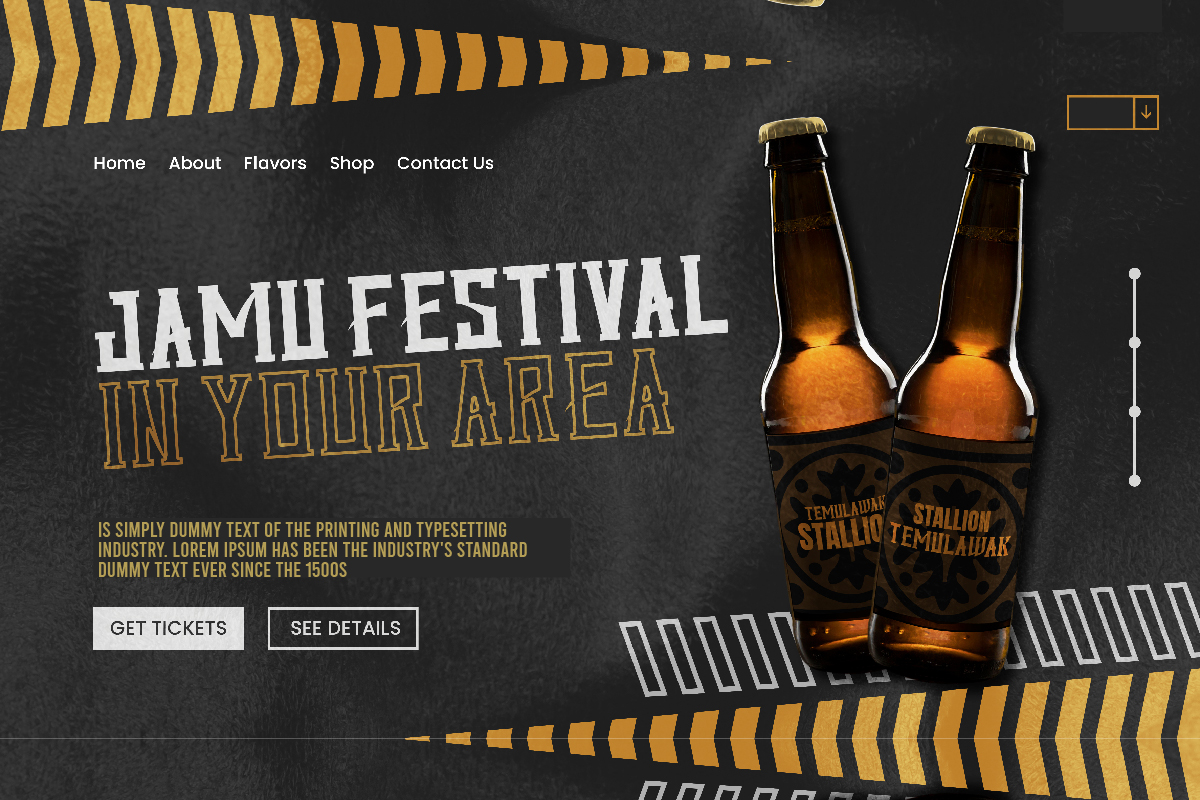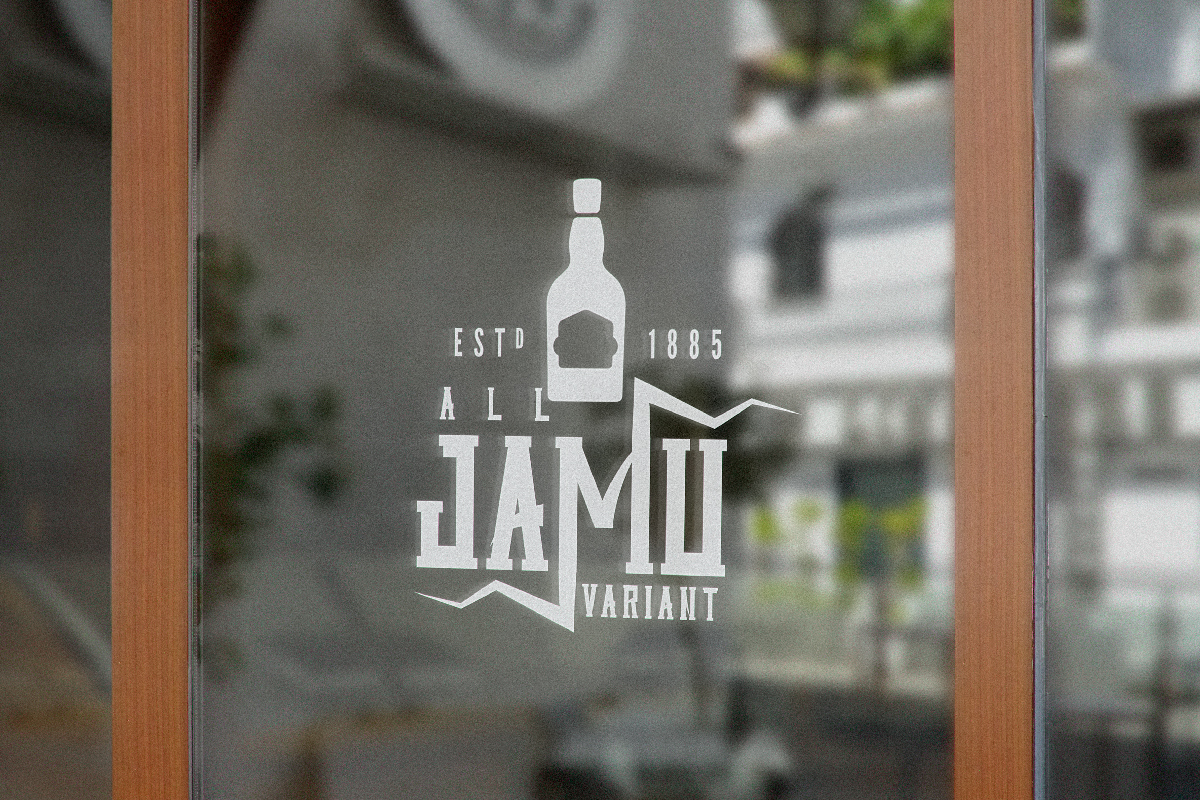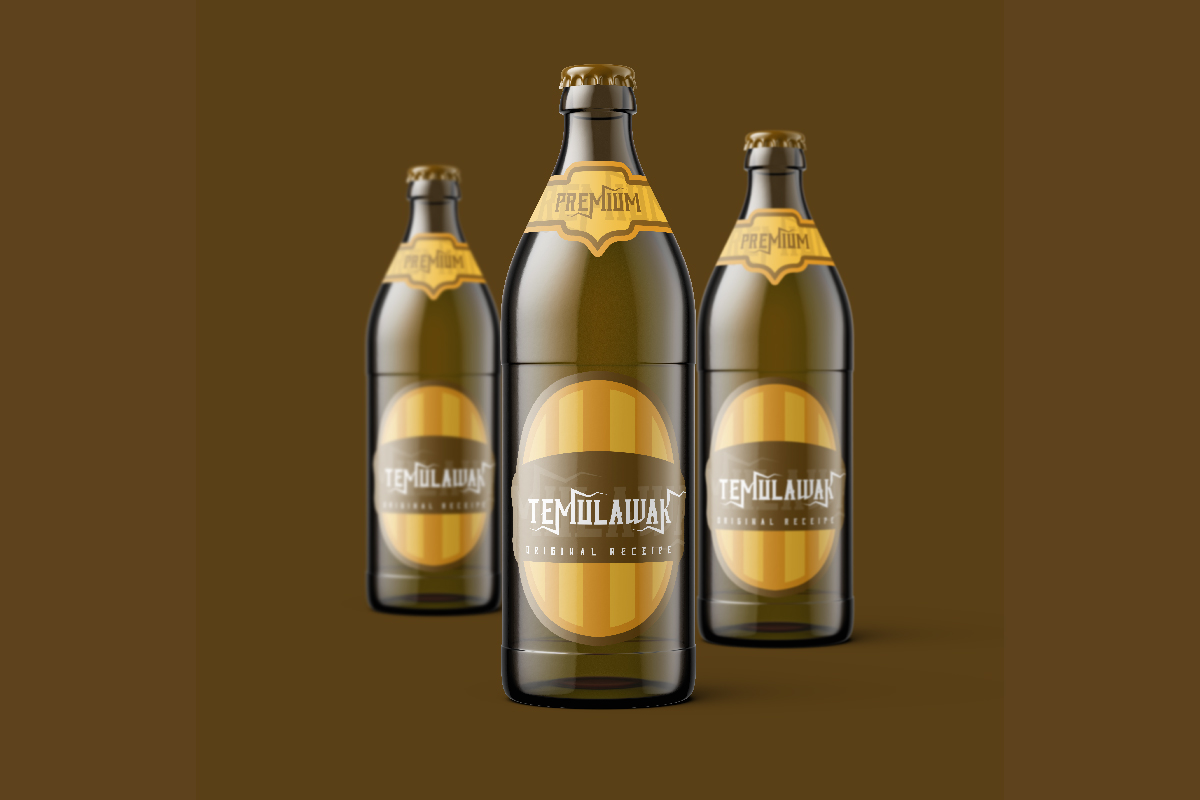
Iron Master Font
Iron Master Display Font
This is a strong unique display font with modern style. It has a strong, modern, mysterious, horror and exclusive glyphs. Iron Master Font will be perfect for branding, logo, photography, headline etc. The font comes with unique alternates to make it exclusive looks.
Iron Master Font is inspired from many modern game play. The font works on PC & Mac with Simple installations. Accessible in the Adobe Illustrator, Adobe Photoshop, Adobe InDesign, even work on Microsoft Word. It’s also PUA Encoded Characters – Fully accessible without additional design software.